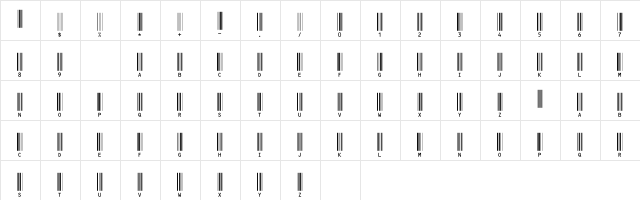
C39HrP48DmTt Normal Font Preview
C39HrP48DmTt Normal
C39HrP48DmTt Normal Font Details
Design Context for C39HrP48DmTt Typeface
C39HrP48DmTt is a composed and adaptable typeface that performs quietly and consistently across a wide range of design contexts.